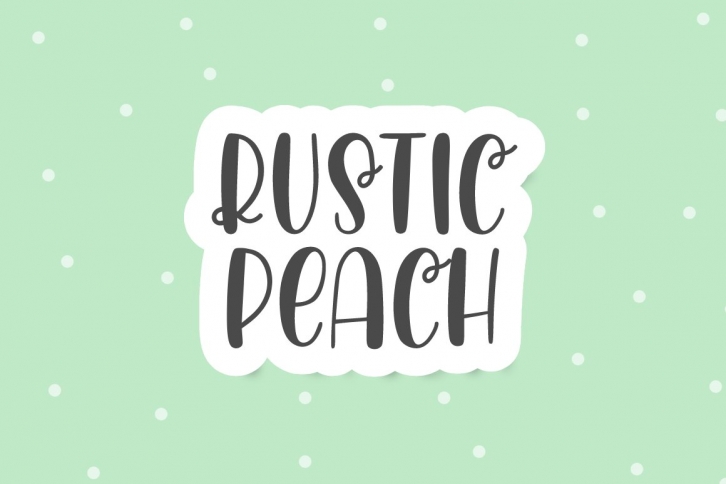
Rustic Peach is a trendy and unique font with an authentic style. It was designed by Jimtype Studio and it's a great choice for creative people who need such a font. It was released on May 19, 2021 and the file size is 20.29 MB. Rustic Peach will add an organic vibe to any design idea!